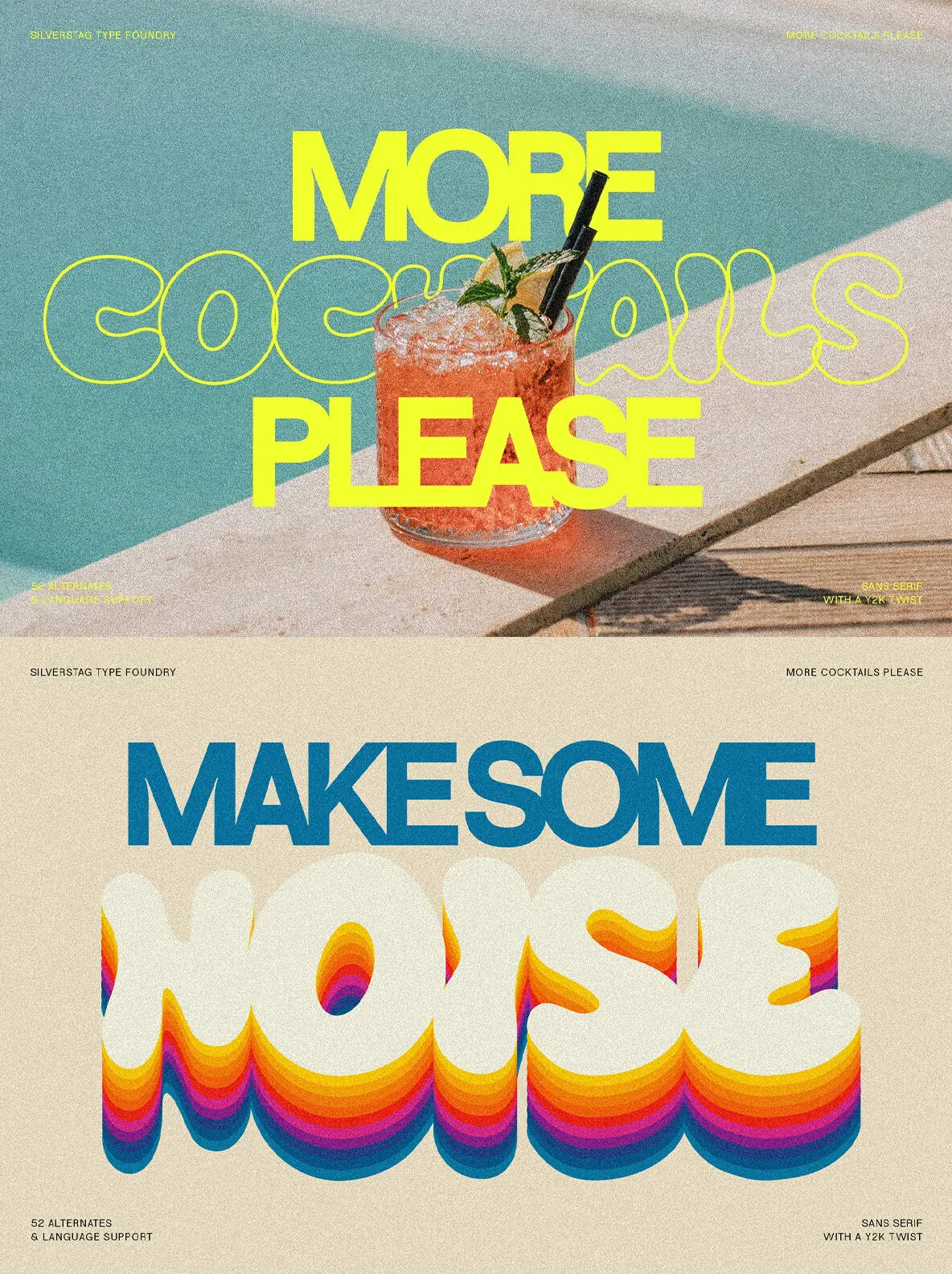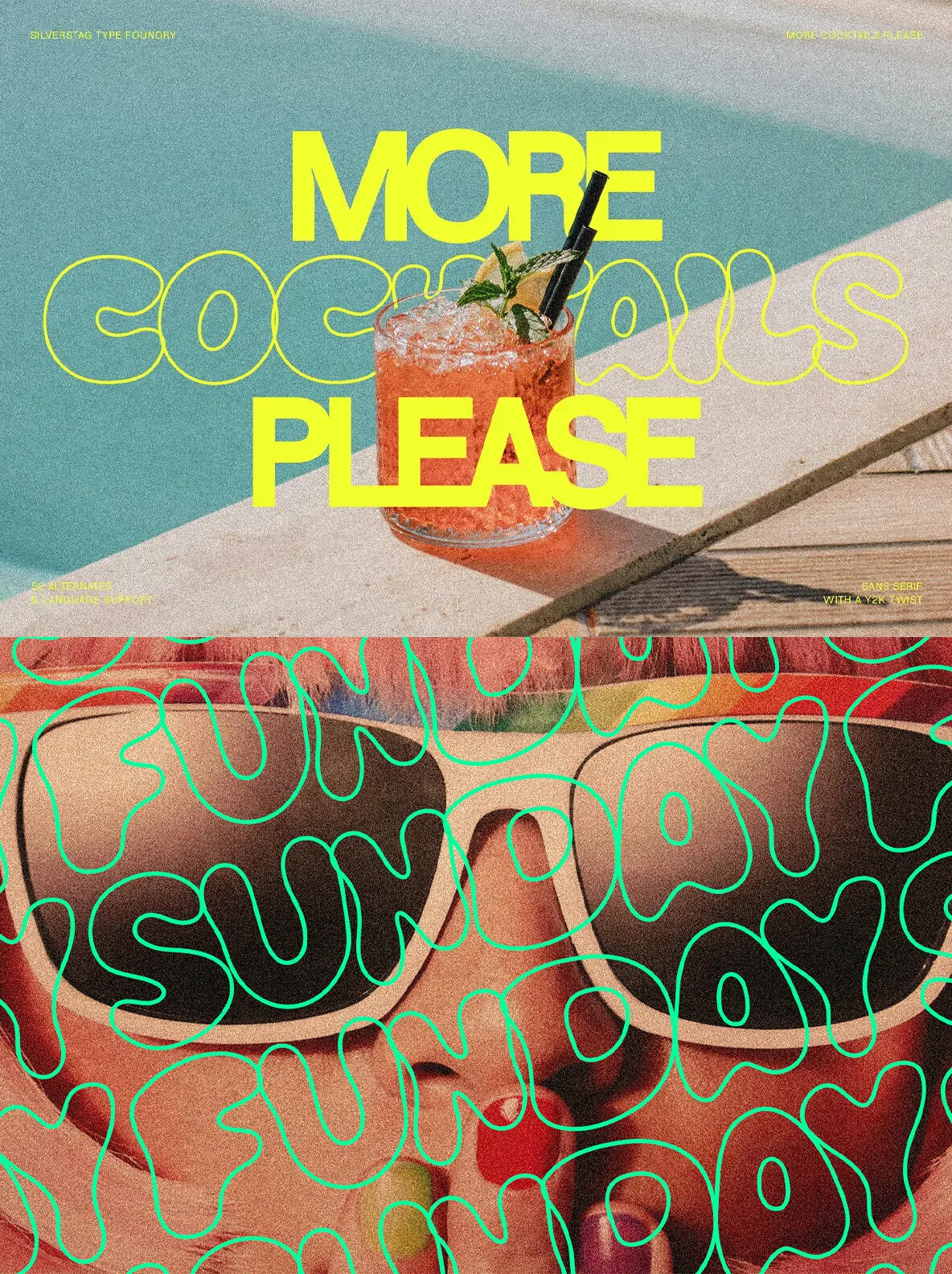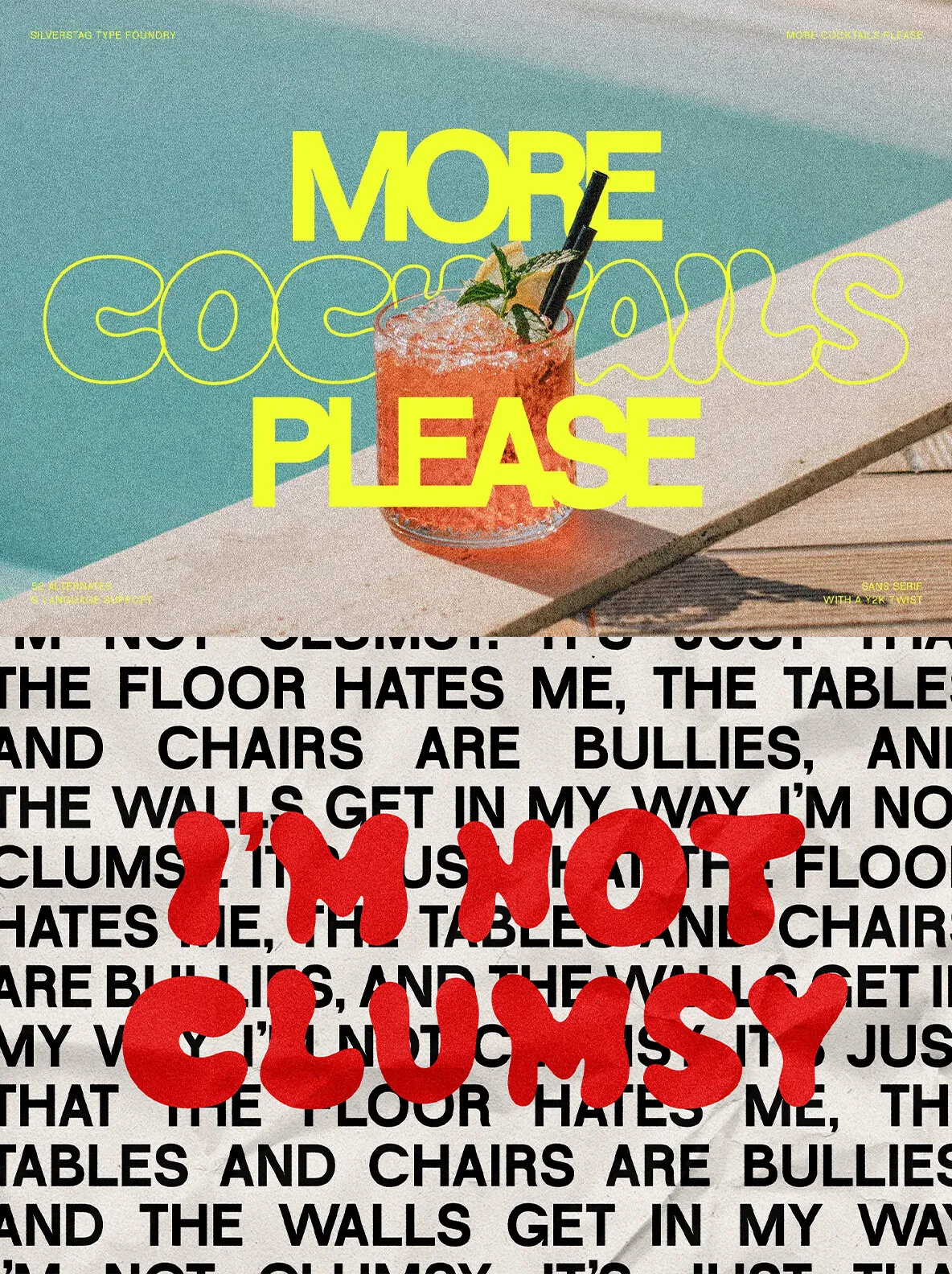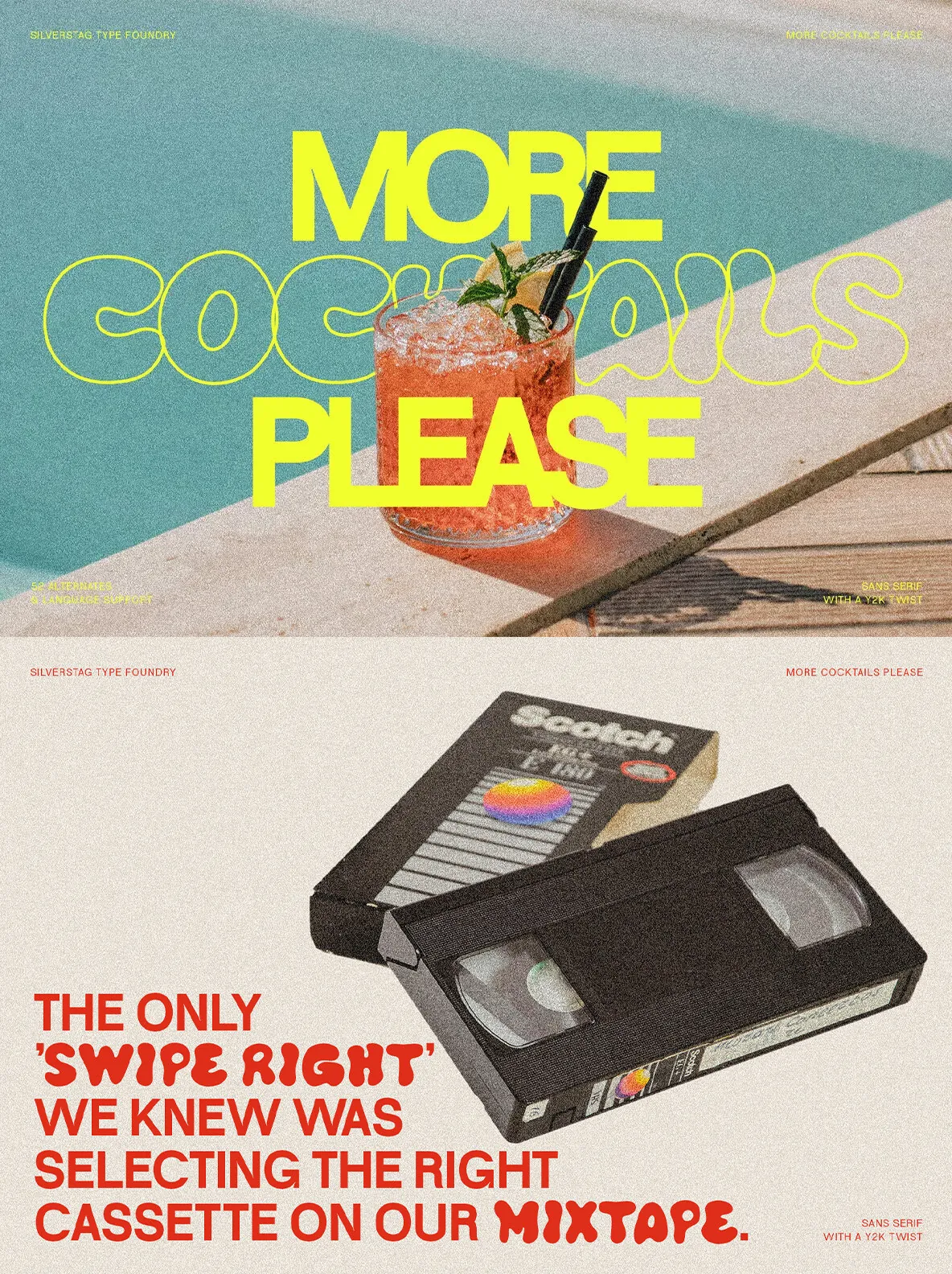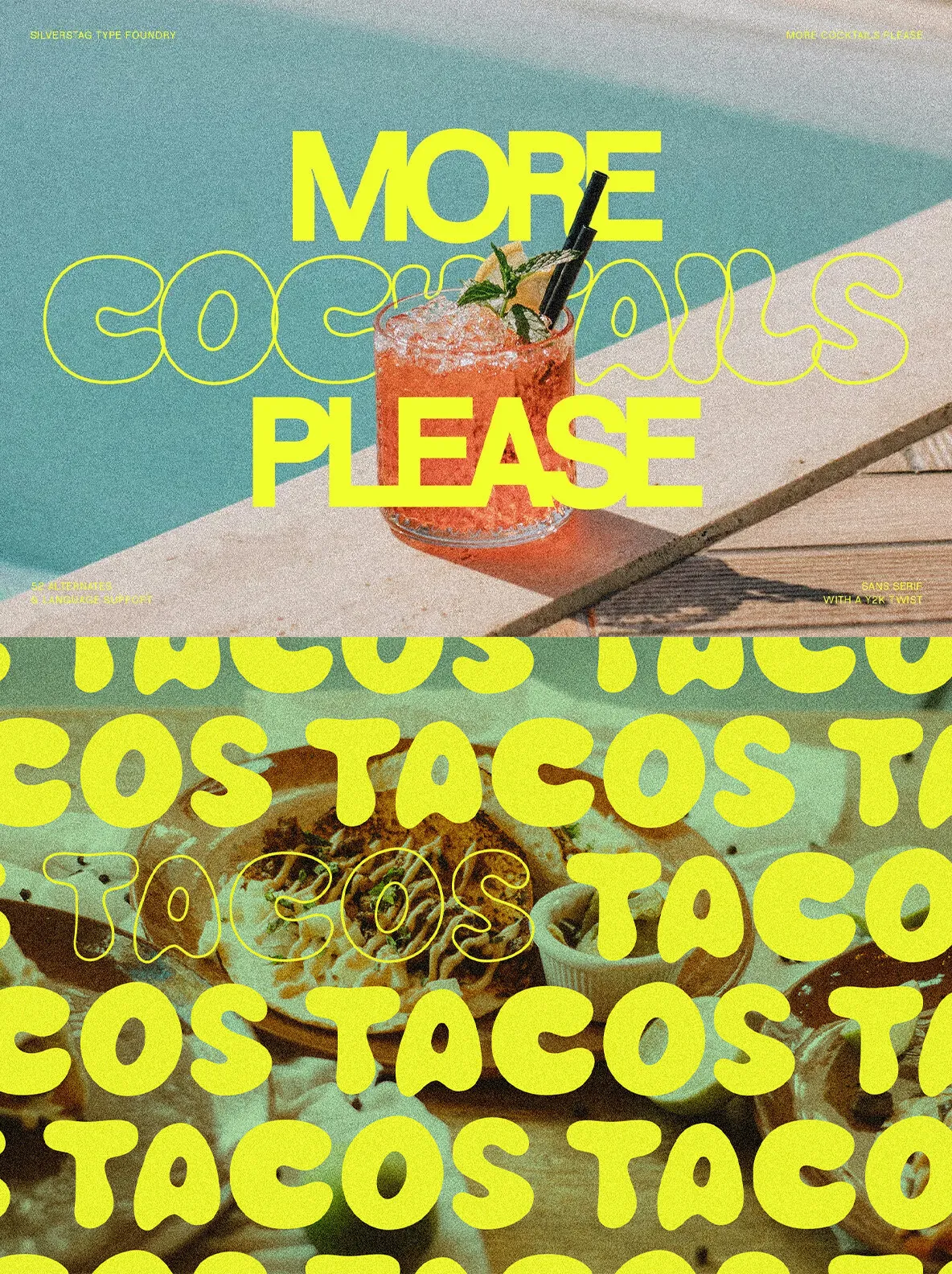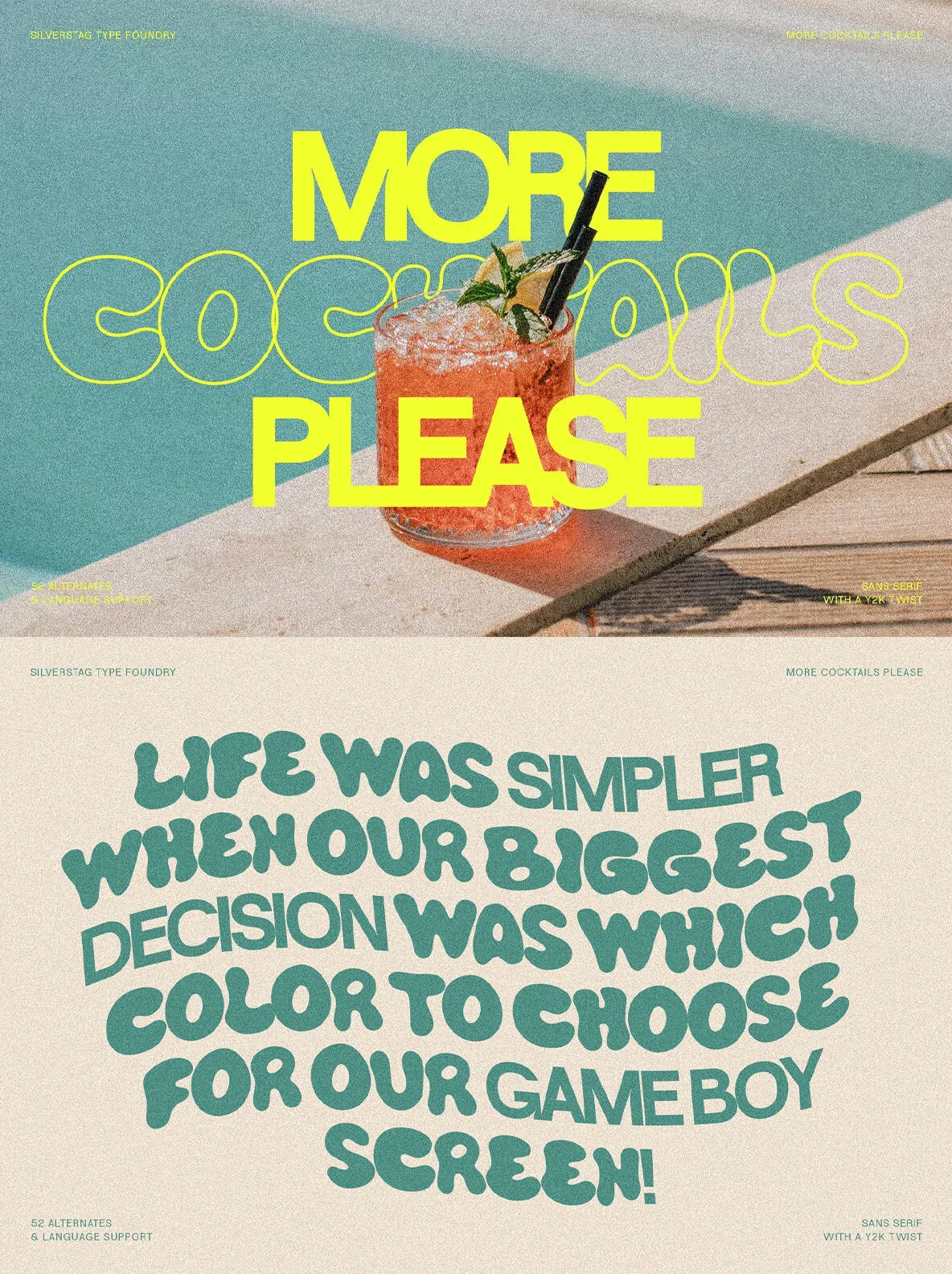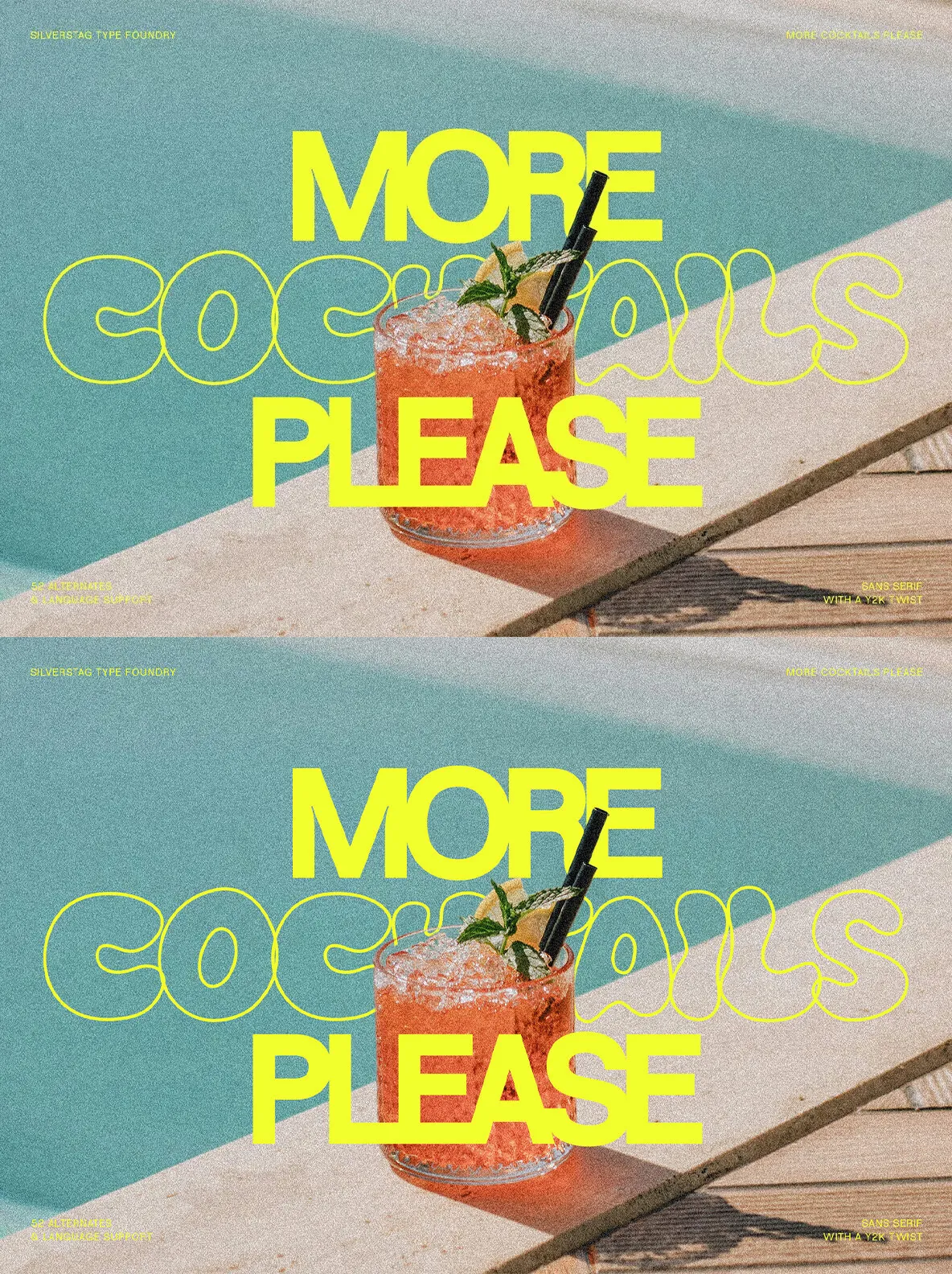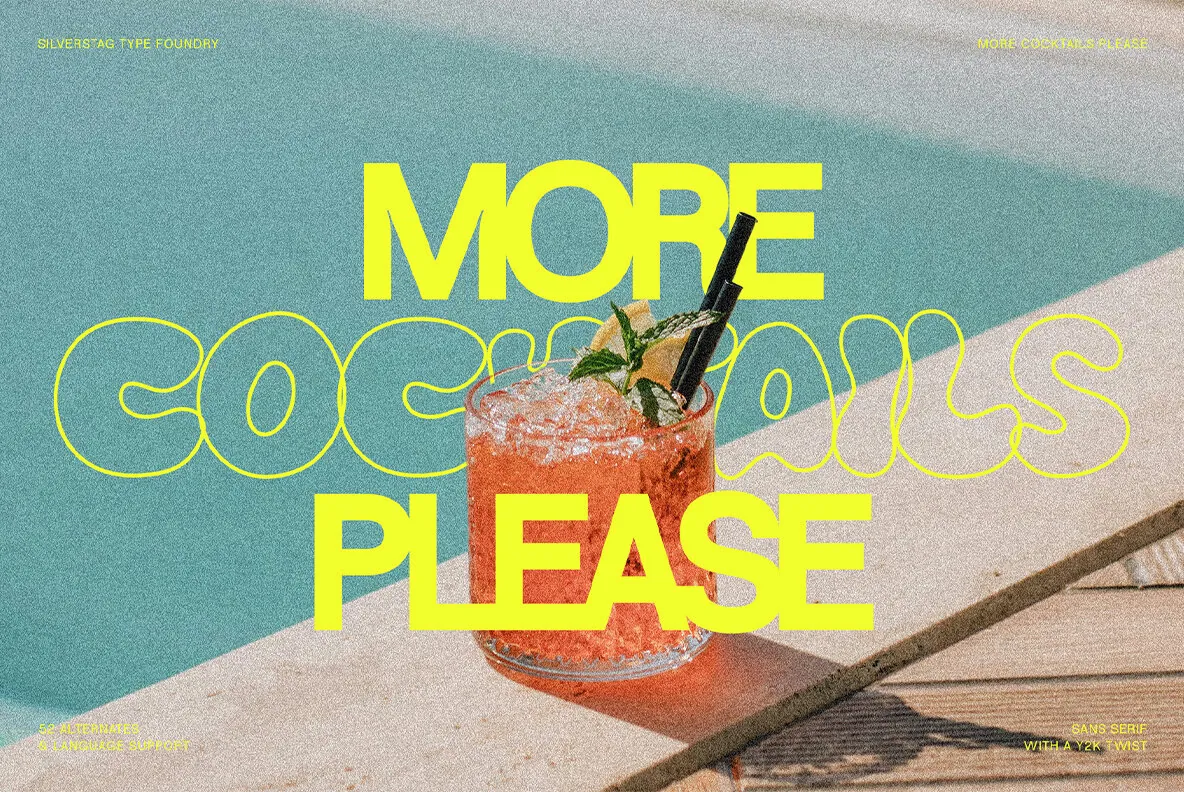
More Cocktails Please — Y2K Pop, Served Bold
More Cocktails Please is a captivating font that captures the vibrant spirit of the Y2K era. Inspired by the bold, playful typography of the time, it brings a clear sense of retro nostalgia to contemporary design. Use it when you want lettering that feels confident, expressive, and immediately recognizable.
More Cocktails Please includes two unique sets of uppercase alternates, giving you plenty of room to shape the tone of your typography. The main font uses a bold sans serif style. The alternates shift into hand-drawn, funky, curvy bubbly letters. Together, these styles create dynamic, eye-catching type that reads well while still feeling full of character.
With over 52 ligatures and alternates, you can personalize words, refine rhythm, and add individuality to your layouts. More Cocktails Please also offers extensive language support across more than 90 languages, making it a versatile choice for headlines, bold logos, and marketing materials. Embrace the retro funk of More Cocktails Please and let it transform your designs into works of art.